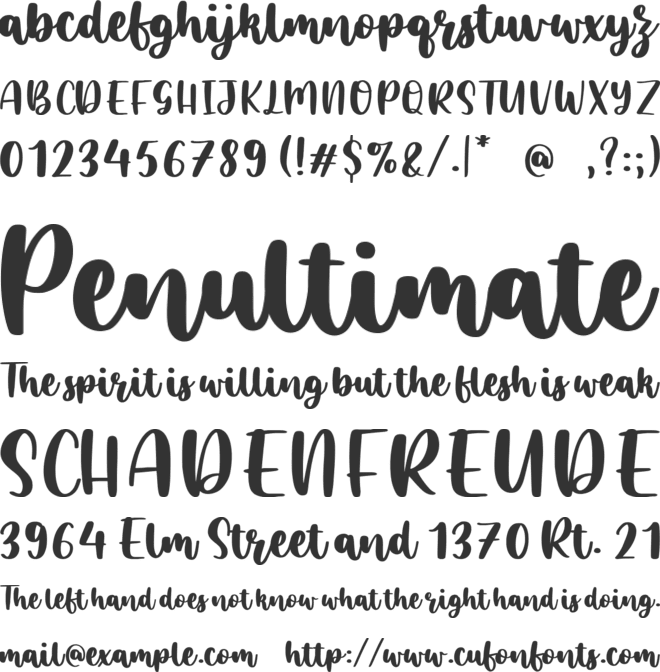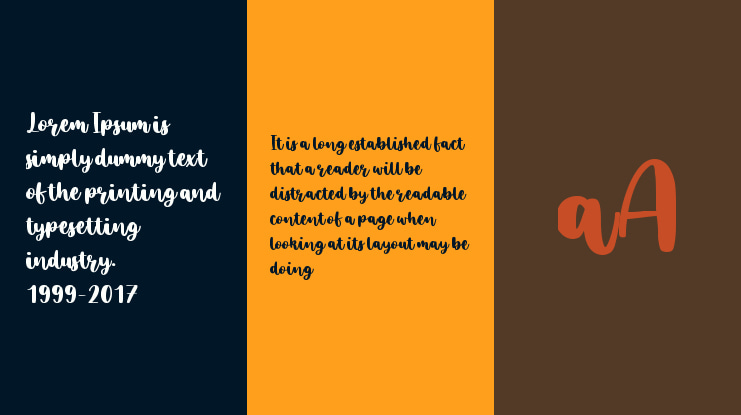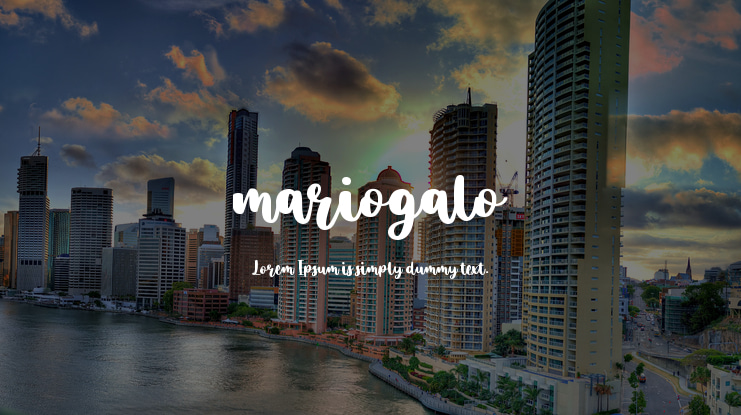
mariogalo Font
Proudly Present, Mariogalo Font.
Mariogalo is a Modern Handwritten font.
Mariogalo is perfect for product packaging, branding project, megazine, social media, wedding, or just used to express words above the background.